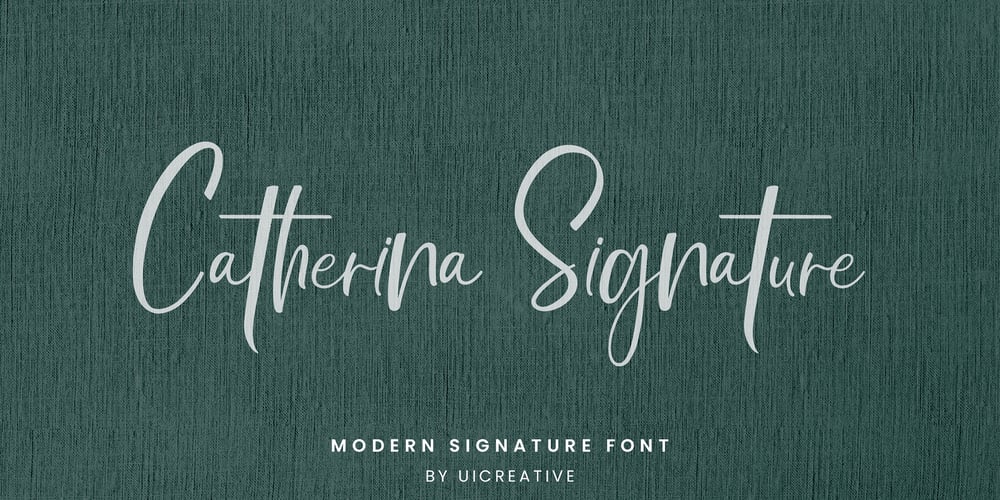
Catherina Signature Font Family was designed by Hero and published by UICreative. Catherina Signature contains 1 styles and family package options. Introducing our new product the name Catherina Modern Signature Font. Modern Handwriting font that feels beautiful classy, elegant, and modern. This font is perfectly suited for a wide variety of projects, such as signature, stationery, logo, wedding, typography quotes, magazine or book covers, website headers, clothing, branding, packaging design, and more. Also for fashion-related branding or editorial design and displays both masculine and feminine qualities.